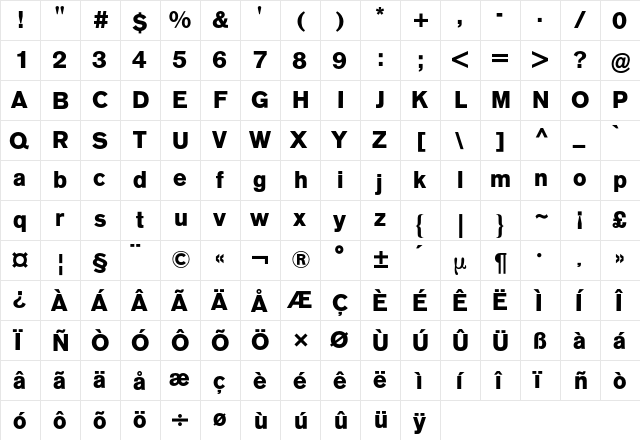
AG Old Face BQ Regular
Design Context for AG Old Face BQ Typeface
AG Old Face BQ takes a measured approach to typography — its balanced proportions and neutral character make it a reliable workhorse for both digital and print work.